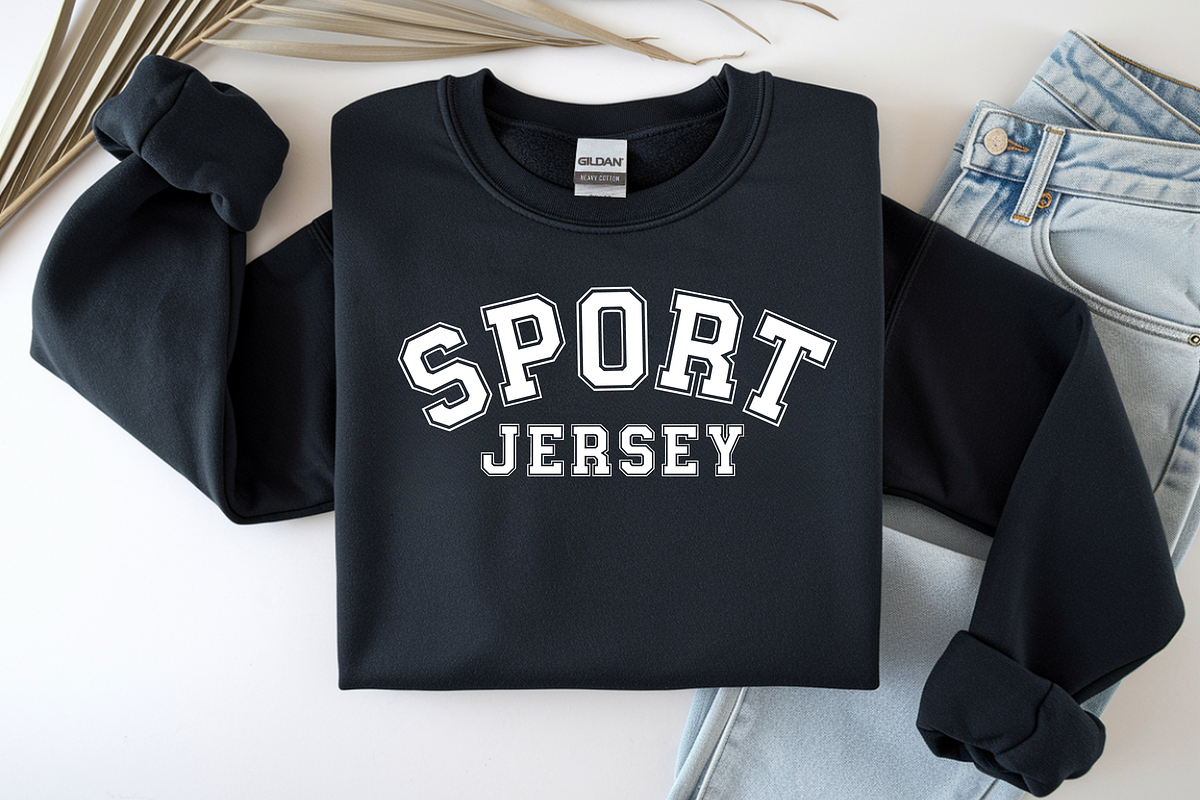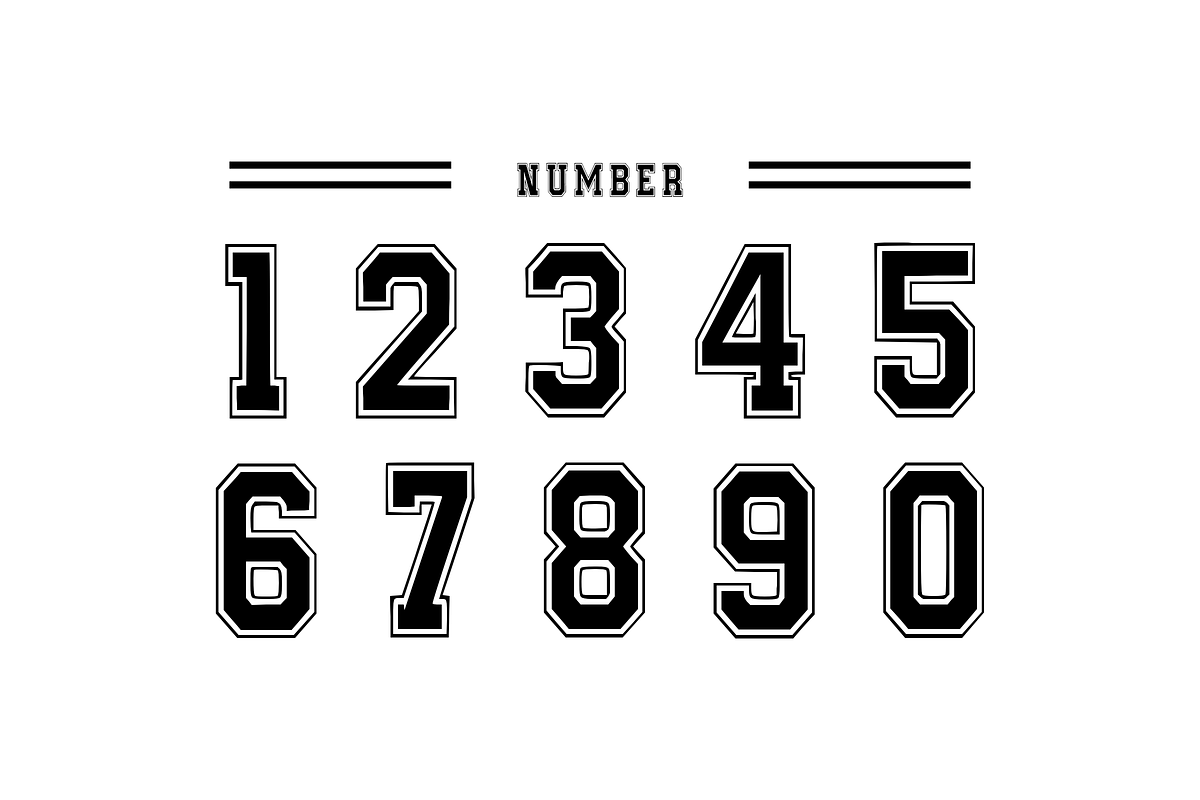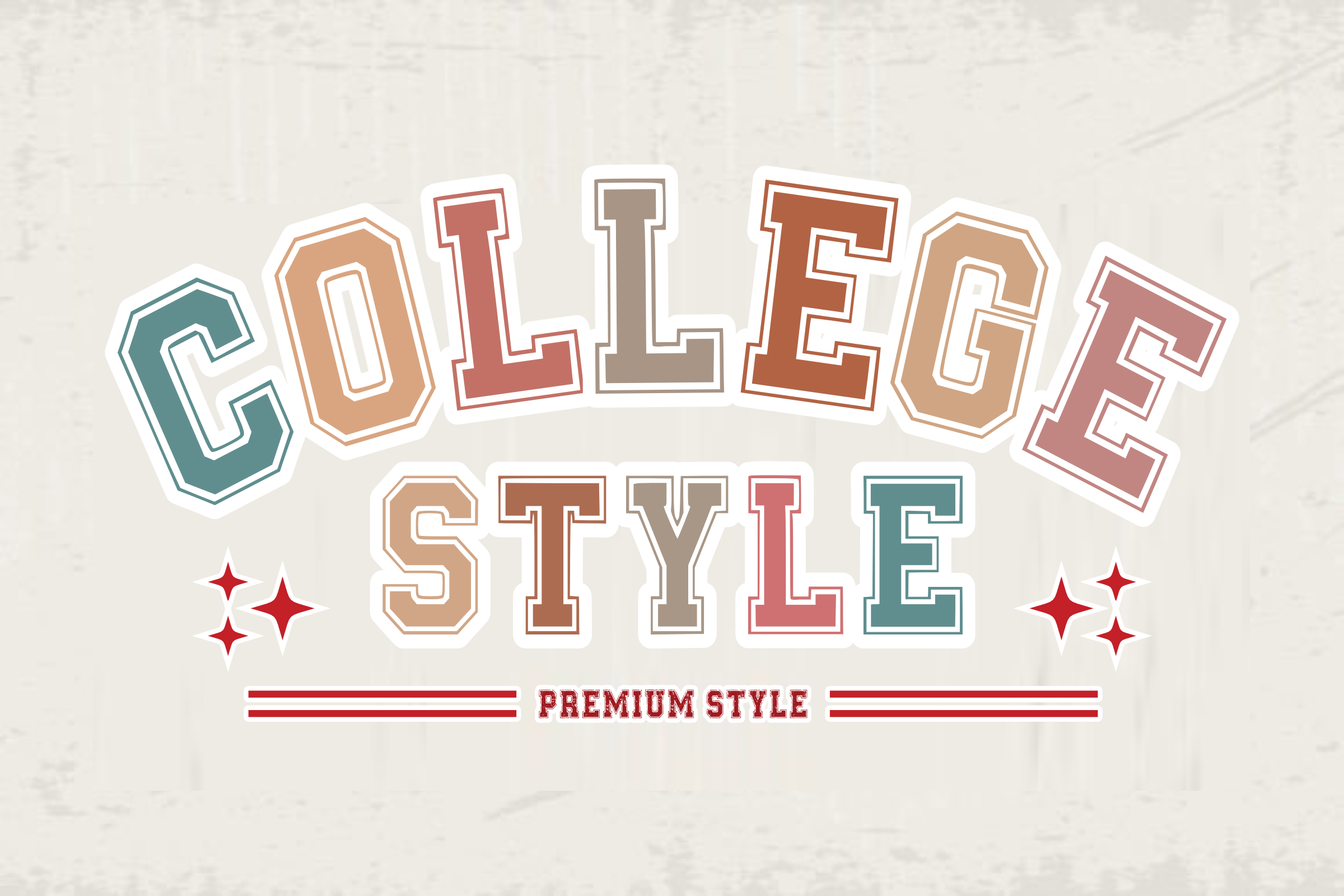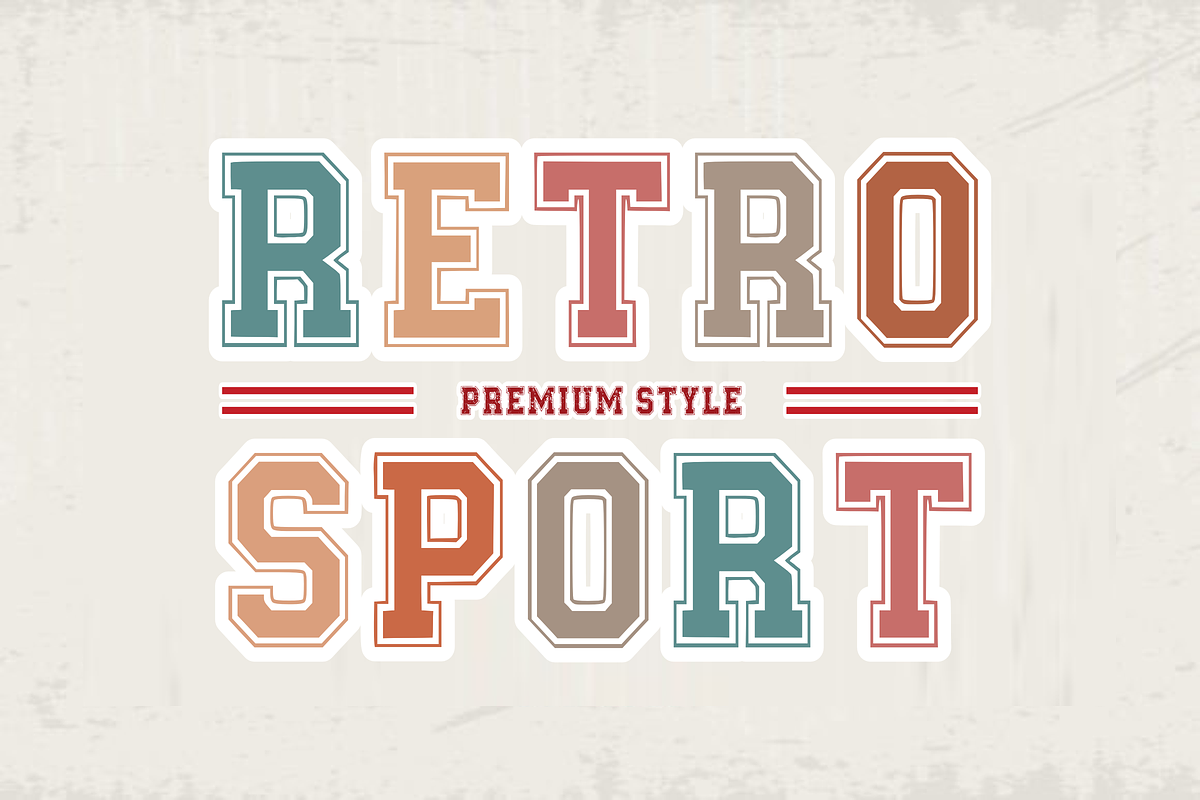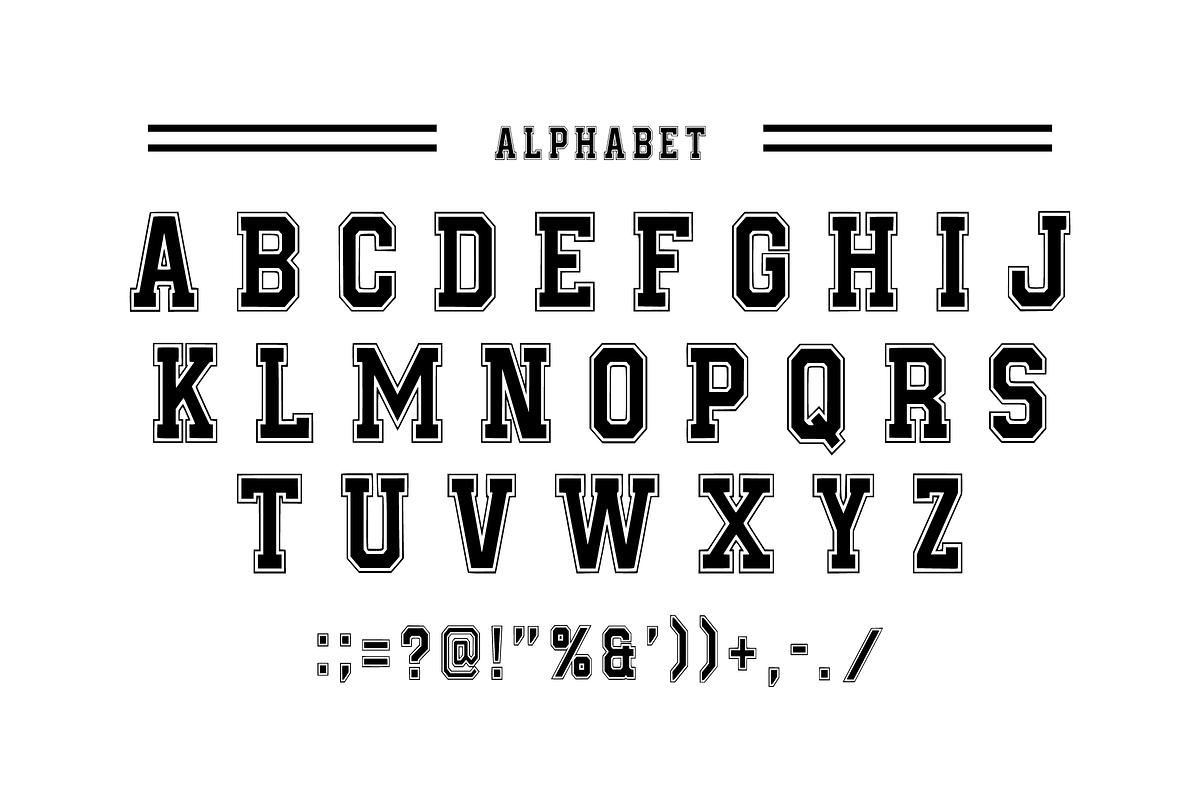
College Style - Retro Font Types
๐ College Style โ Classic Varsity & Sport Display Font ๐ Bring the winning spirit to your designs! ๐๏ธ
College Style is a bold, athletic display font inspired by classic university varsity letters. Featuring a clean slab-serif structure with a stylish inner-line detail, this font captures the timeless "campus" aesthetic. Itโs the ultimate choice for designers looking to create high-impact, sporty, and retro-themed projects that demand attention.
From game-day jerseys to vintage-style university branding, College Style provides that authentic, collegiate look that never goes out of style.
โจ Key Features: Athletic Aesthetic: Bold, blocked letters with a professional sporty outline.
Complete Essentials: Includes All Uppercase Letters, Numbers, and Simple Symbols.
Versatile & Clear: Perfect for large headlines, team logos, and apparel.
๐จ Best Used For: ๐๏ธ Sports Team Branding & Logos
๐ Varsity Jackets & University Apparel
๐ Graduation & College Event Graphics
๐ฑ Athletic Social Media & Gym Content
๐ Tournament Posters & Game Day Flyers